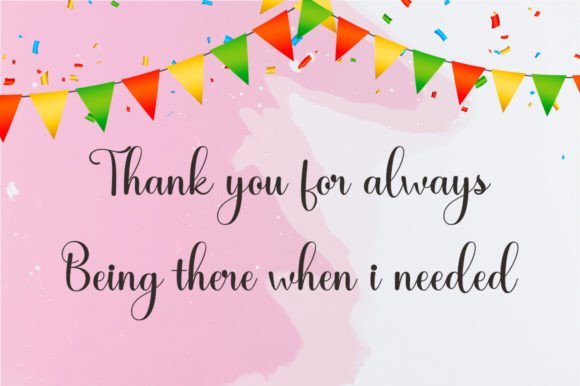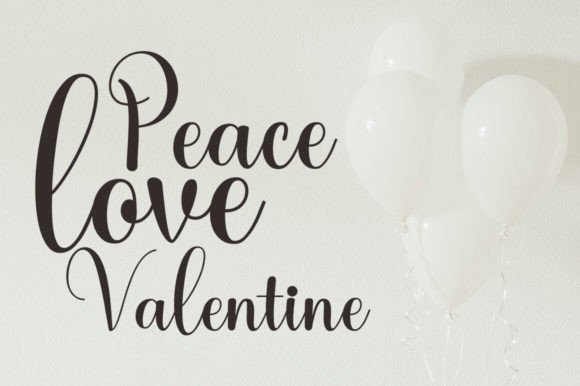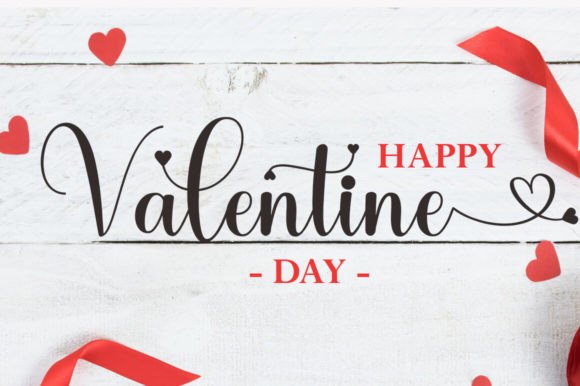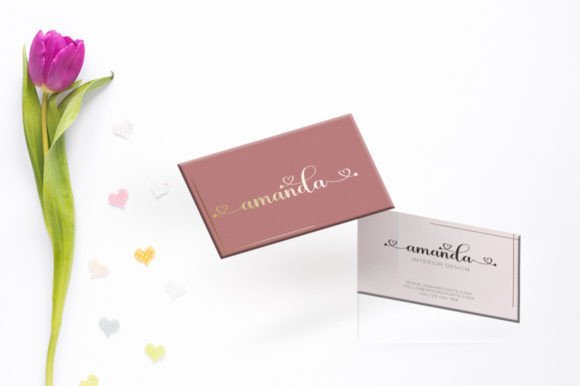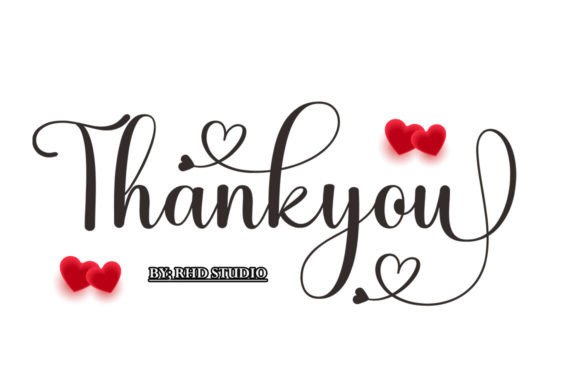
Introducing Barbie Font: Elevate Your Designs with Elegance and Sophistication
Are you a designer or crafter looking for a font that exudes elegance and sophistication? Look no further than the Barbie Font! This stunning handwritten font is sure to take your projects to the highest level with its unique blend of classic calligraphy and modern flair.
What Makes Barbie Font So Special?
Barbie Font is an elegant and flowing handwritten font that features varied baselines, smooth lines, gorgeous glyphs, and stunning alternatives. Its classy calligraphic influence gives it a timeless feel, while its contemporary and fresh design ensures it remains modern and relevant. Whether you’re working on a branding project, crafting a logo, or creating beautiful stationery, Barbie Font is the perfect choice.
Key Features of Barbie Font
- Varied Baselines: The font’s varied baselines give it a natural, handwritten feel that’s perfect for creating elegant and sophisticated designs.
- Smooth Lines: The smooth lines of Barbie Font ensure that your designs look refined and polished, even at large sizes.
- Gorgeous Glyphs: The font features a range of beautiful glyphs, including swashes, flourishes, and ligatures, that add an extra touch of elegance to your designs.
- Stunning Alternatives: With a range of alternative characters, you can add some extra flair to your designs and make them truly unique.
Why Choose Barbie Font?
So why choose Barbie Font for your next project? Here are just a few reasons:
- Versatility: Barbie Font is perfect for a wide range of design projects, from logos and branding to stationery and packaging.
- Elegance: The font’s elegant and sophisticated design ensures that your projects will look refined and polished.
- Easy to Read: Despite its elegant feel, Barbie Font is still easy to read, making it perfect for body text as well as headlines.
- Unique: With its range of alternative characters and glyphs, you can create truly unique designs that stand out from the crowd.
How to Use Barbie Font in Your Designs
Using Barbie Font in your designs is easy! Here are a few tips to get you started:
- Pair it with a bold font: Barbie Font looks stunning paired with a bold, sans-serif font. Try pairing it with a font like Arial Black or Impact for a striking contrast.
- Use it for headlines: Barbie Font is perfect for headlines and titles, where its elegant and sophisticated design can really shine.
- Add some flair with glyphs: Don’t be afraid to add some extra flair to your designs with Barbie Font’s gorgeous glyphs and stunning alternatives.
In conclusion, Barbie Font is a stunning handwritten font that’s perfect for designers and crafters looking to add a touch of elegance and sophistication to their projects. With its varied baselines, smooth lines, gorgeous glyphs, and stunning alternatives, it’s the perfect choice for a wide range of design projects. So why wait? Fall in love with Barbie Font and take your designs to the highest level!